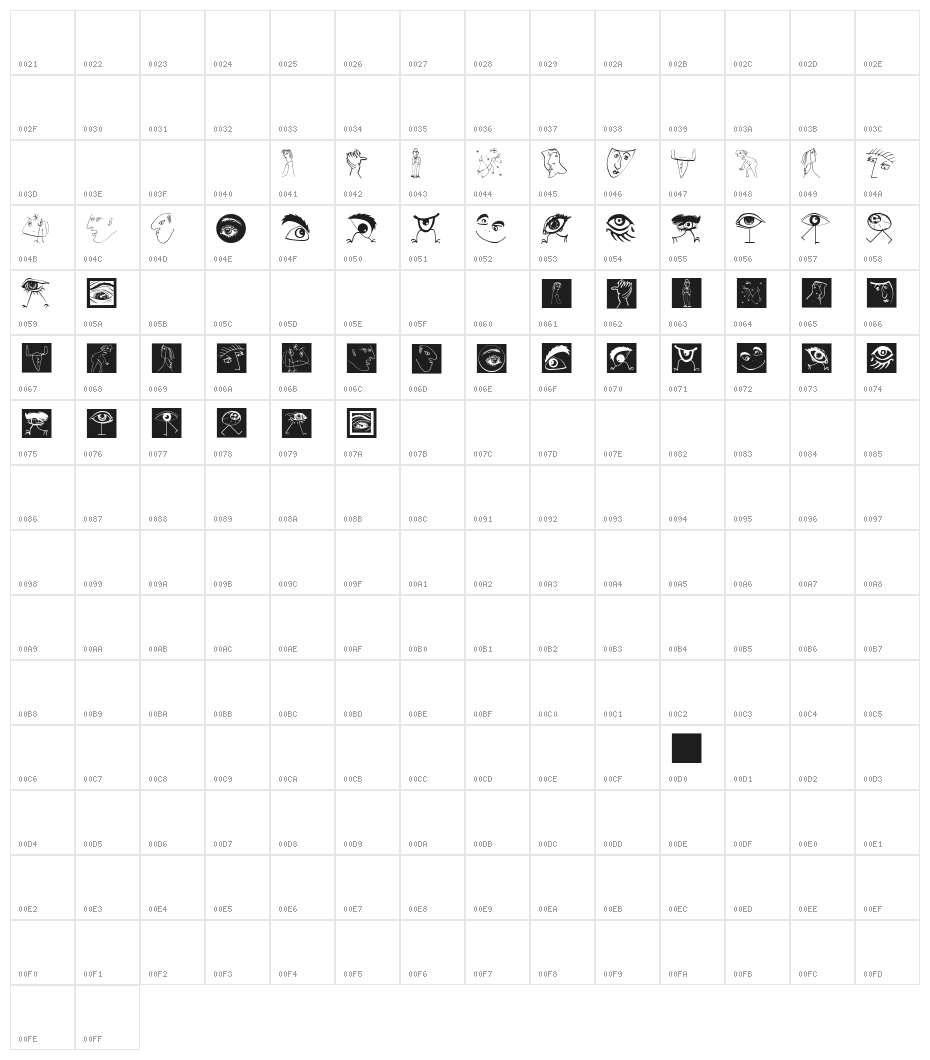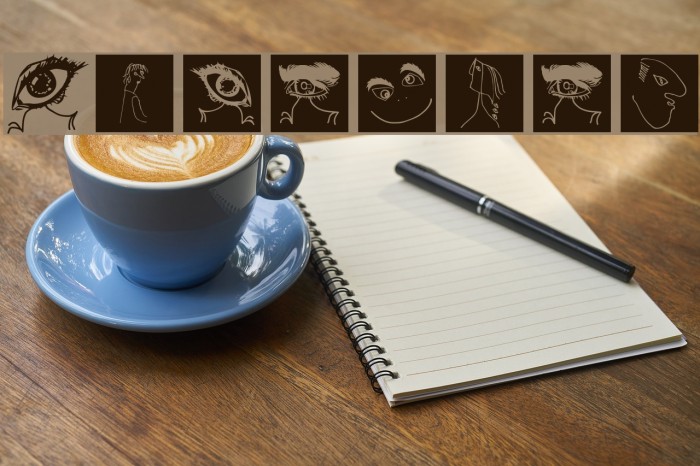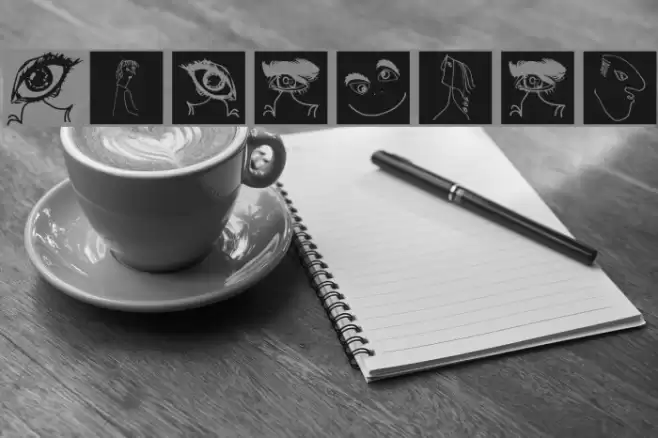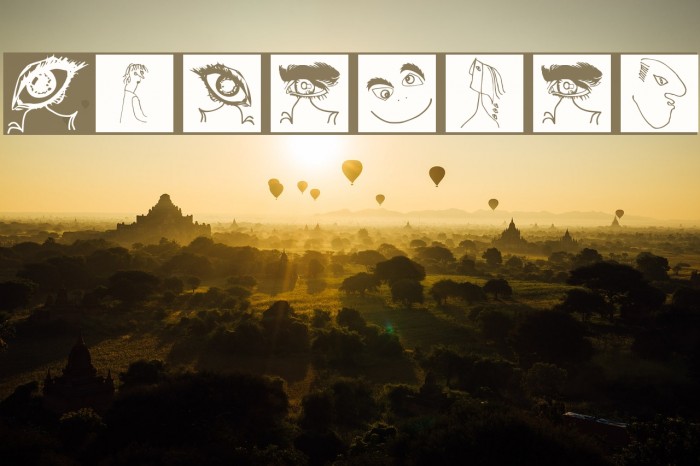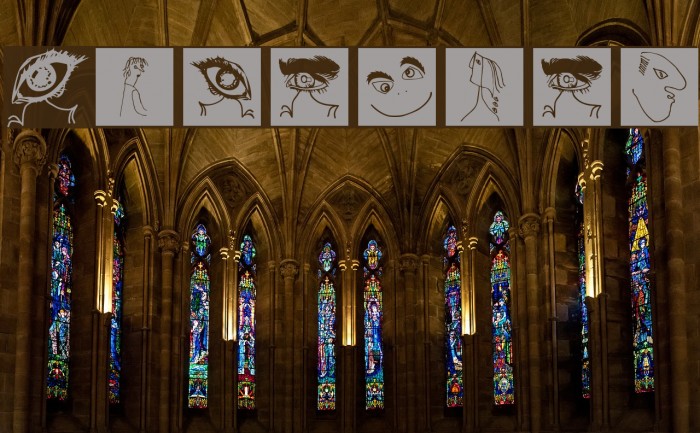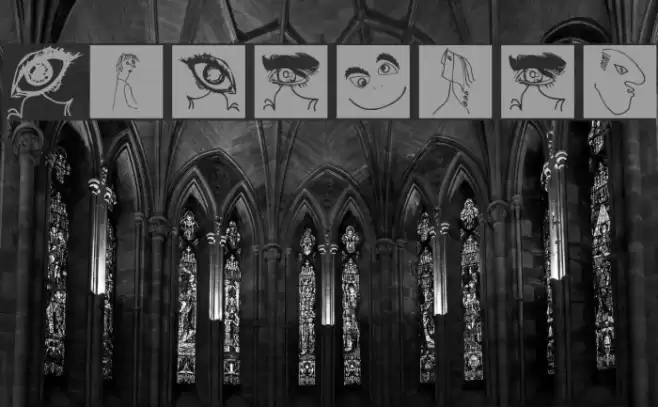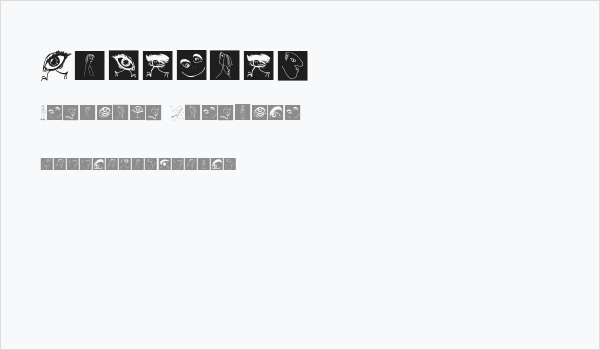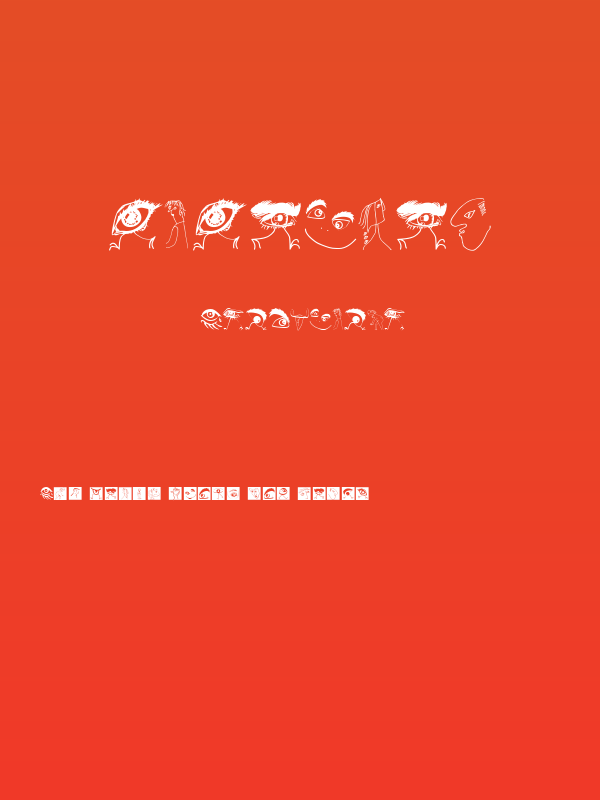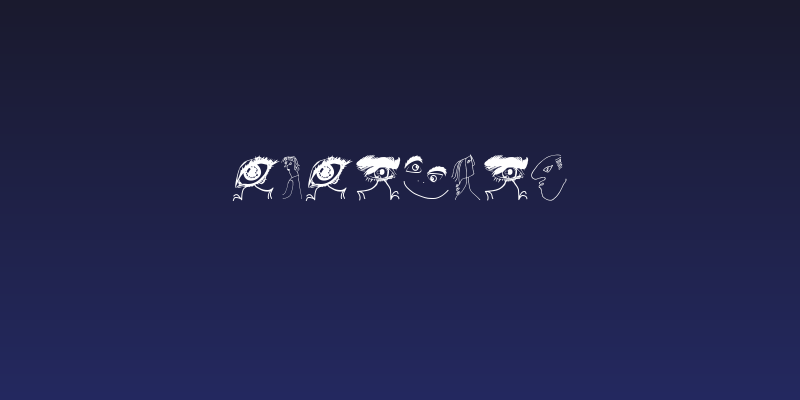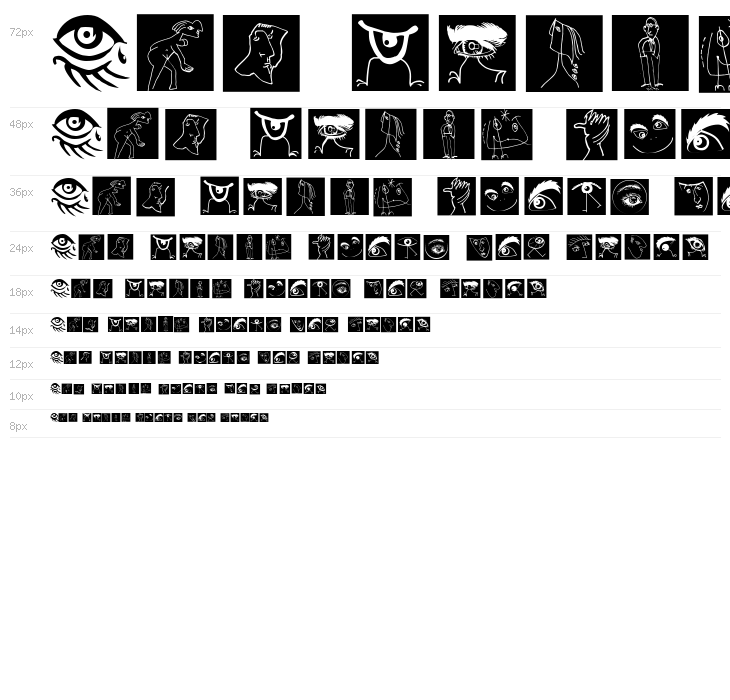
Sasurium Font
Sasurium Description
This font is a highly artistic and abstract collection of characters that resemble doodles or sketches. Each character is a unique illustration, often depicting faces, eyes, or figures in a whimsical and surreal style. The design is reminiscent of abstract art, with a playful and imaginative approach. The characters are not traditional letters but rather creative representations that convey a sense of movement and expression. This font is ideal for projects that require a distinctive and artistic touch, offering a visual experience that goes beyond conventional typography.
| Overall Style | Artistic, Abstract, Whimsical |
| Use Case | Artistic designs, Creative projects, Decorative purposes |
| Proposed Projects | Ideal for art projects, creative posters, album covers, or any design requiring a unique and artistic flair. |